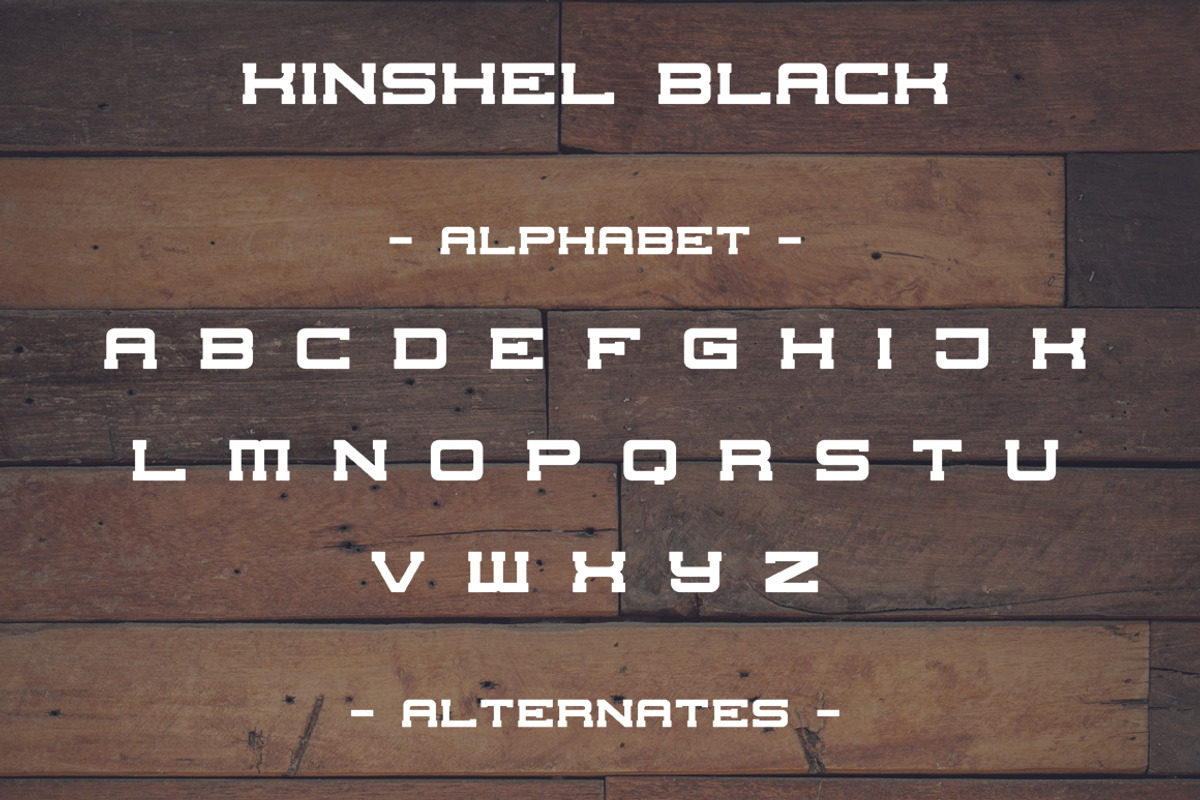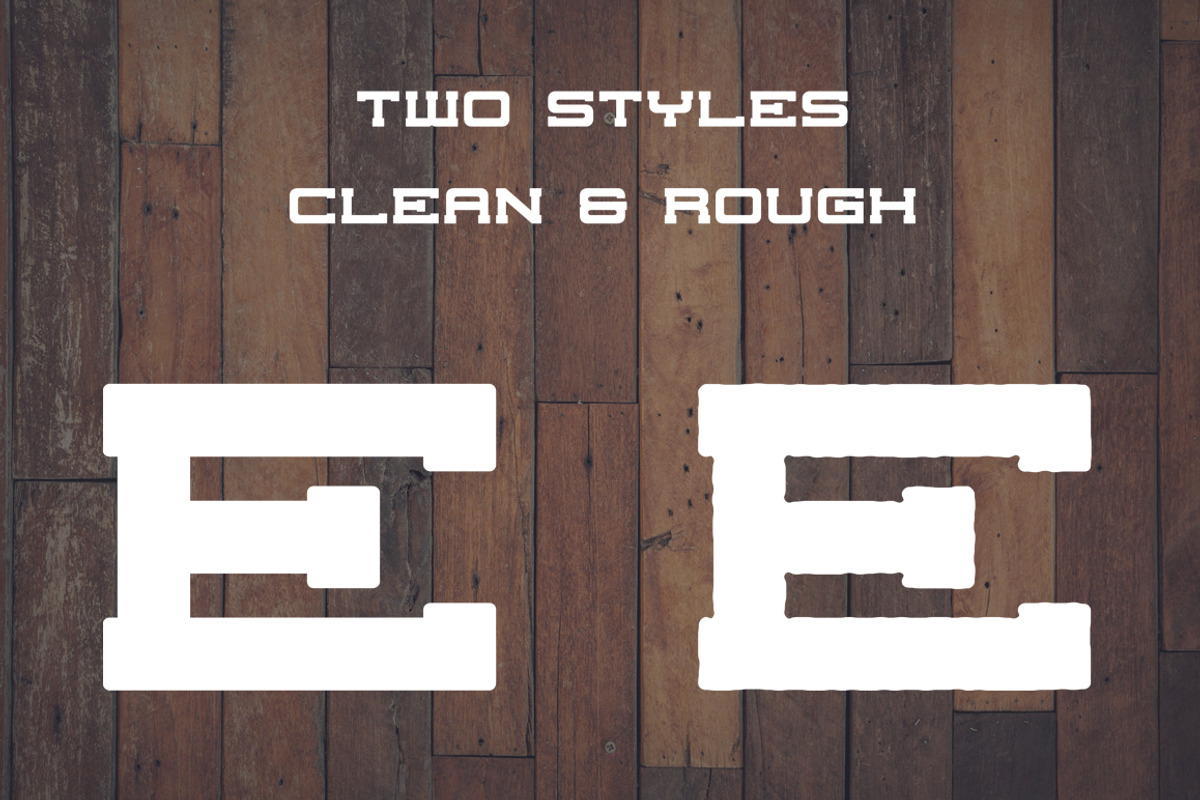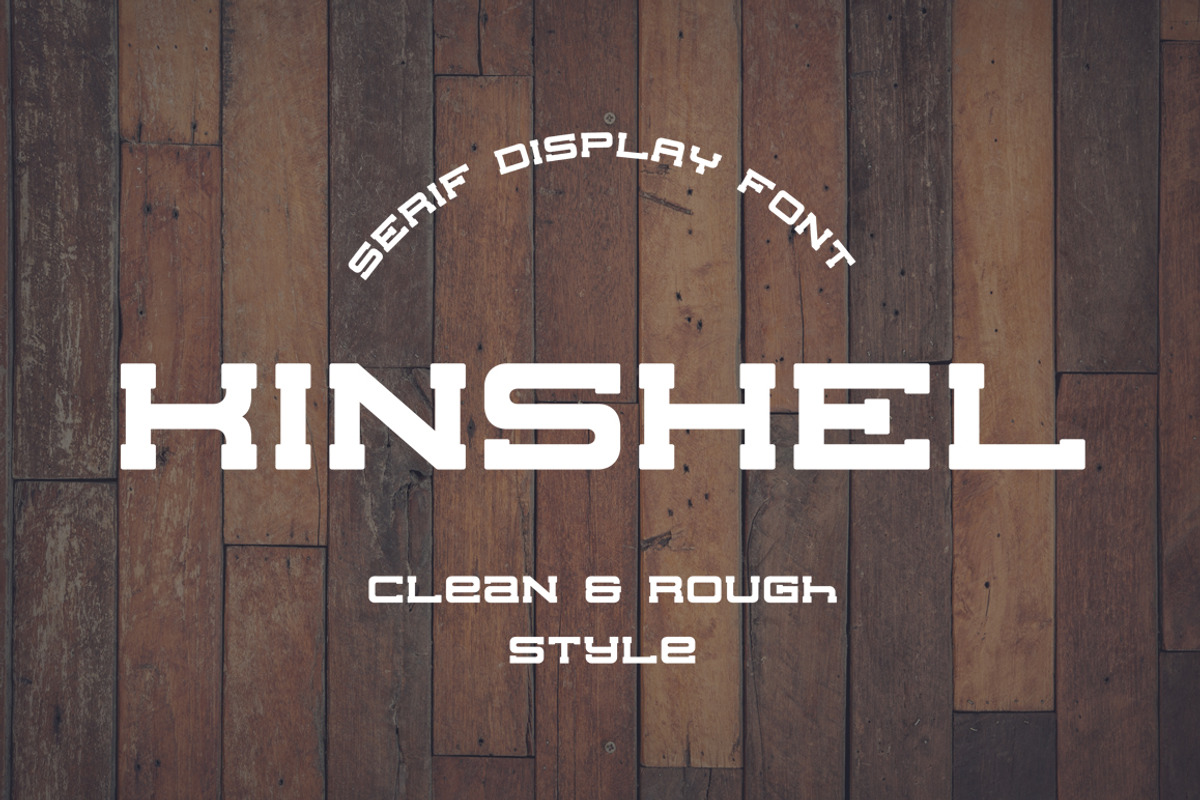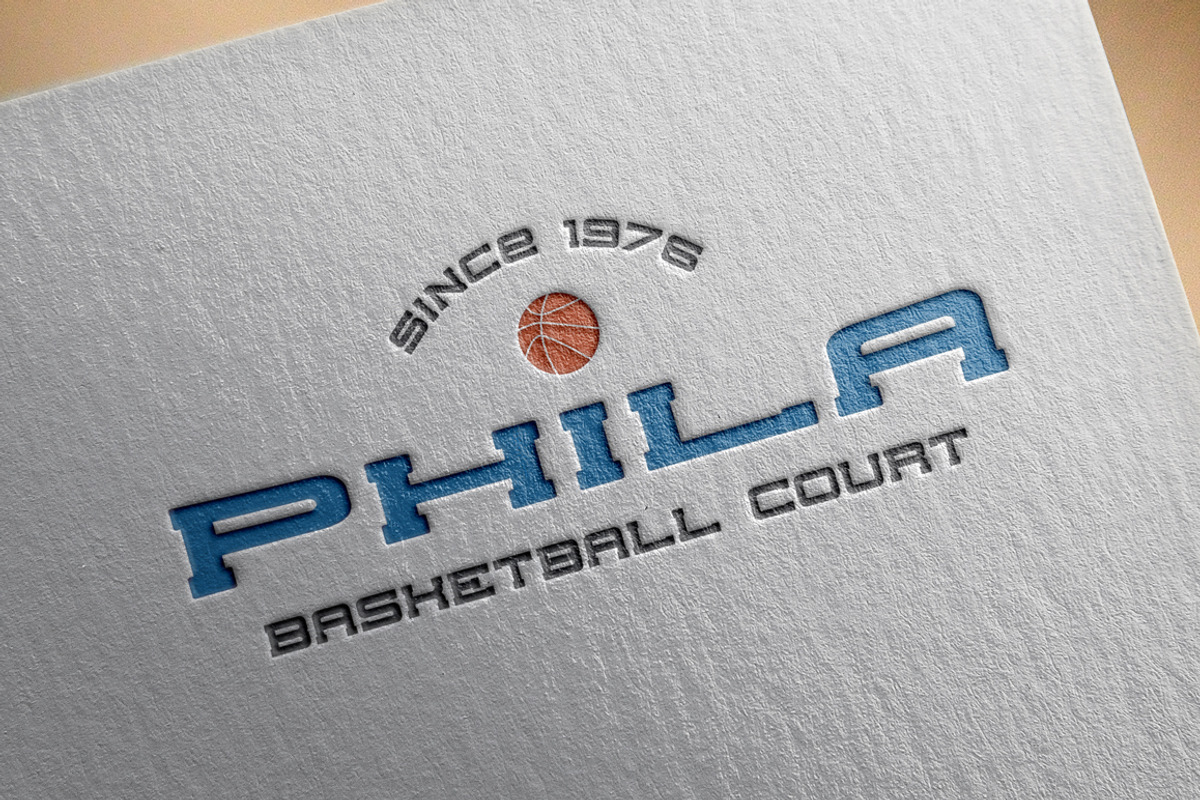
Kinshel Font
Kinshel Font by Bart Wesolek is a font selected for branding, posters, packaging, typography.
- Font contains only basic western alphabet, numerics and special characters.
- Kinshel Black Black
- Kinshel Rough Rough
Kinshel Font by Bart Wesolek fits naturally into Branding, posters, packaging, typography.